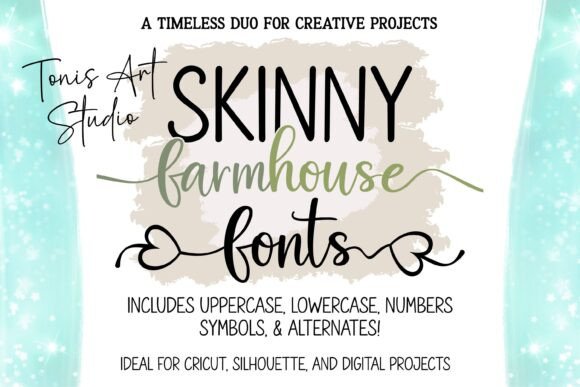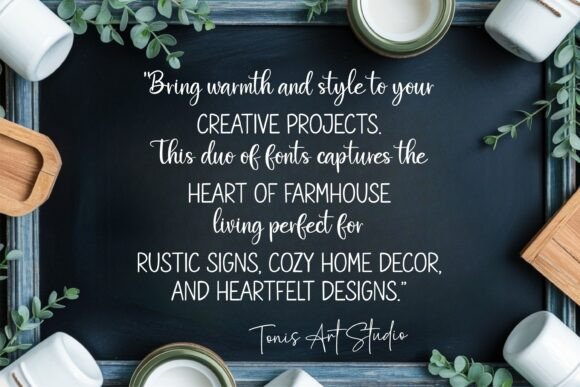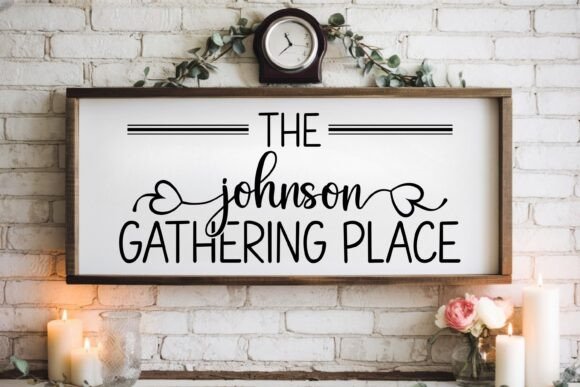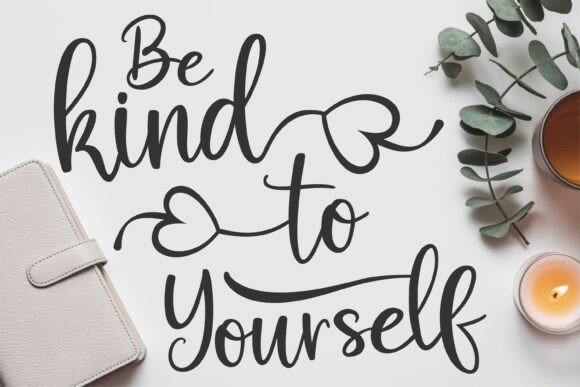
Farmhouse Script & Skinny Farmhouse Font
About the Farmhouse Script & Skinny Farmhouse Font
Make a bold statement with Farmhouse Script & Skinny Farmhouse Font, a powerful and memorable font. Discover the perfect blend of rustic elegance and modern simplicity with our Farmhouse Font Duo. This set features two complementary fonts: Farmhouse Script: A flowing, handwritten-style font with optional tail and heart alternates to add a whimsical, decorative touch to your designs. Skinny Farmhouse: A clean, minimalist font with bold, uppercase letters that pair seamlessly with the script for a balanced, versatile look.
The Farmhouse Script & Skinny Farmhouse duo excels in projects requiring a touch of rustic charm with a modern edge. Ideal applications include logos for artisanal food brands, wedding invitations, short-form quotes on social media graphics, and packaging for handcrafted goods. It’s less suitable for extensive body text or user interfaces due to the script’s low readability in smaller sizes.
For optimal pairings, consider complementing the script with a clean sans-serif like Lato or Open Sans for a balanced contrast. Alternatively, a geometric sans-serif like Montserrat adds a contemporary feel, while a classic serif like Playfair Display provides a more traditional pairing. Skinny Farmhouse, on its own, pairs well with almost any typeface due to its versatility.
The overall personality is friendly, approachable, and slightly whimsical; conveying a sense of handcrafted quality and rustic elegance without appearing overly informal or cluttered.
Farmhouse Script & Skinny Farmhouse Font Usage Examples
Farmhouse Script & Skinny Farmhouse Font Example